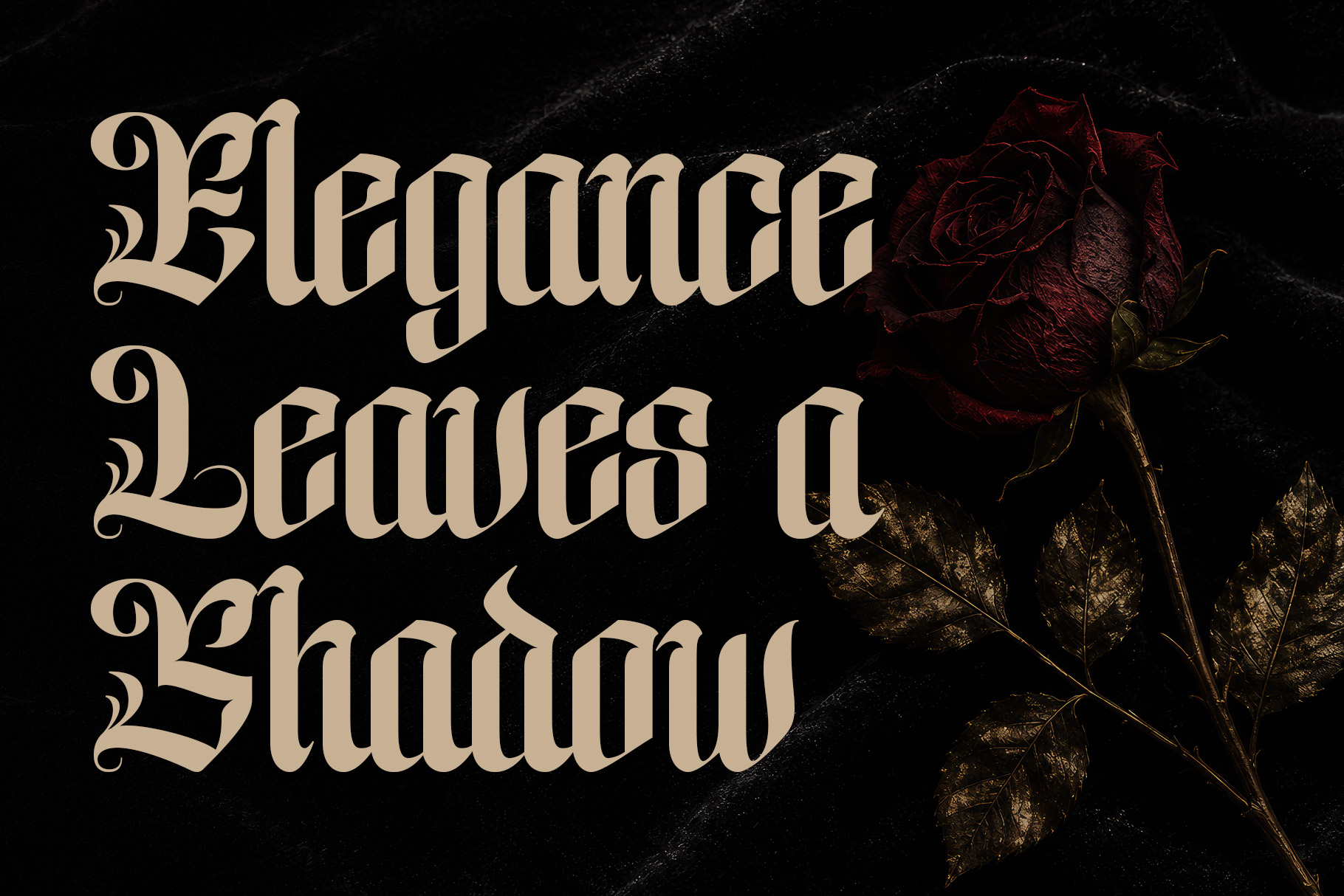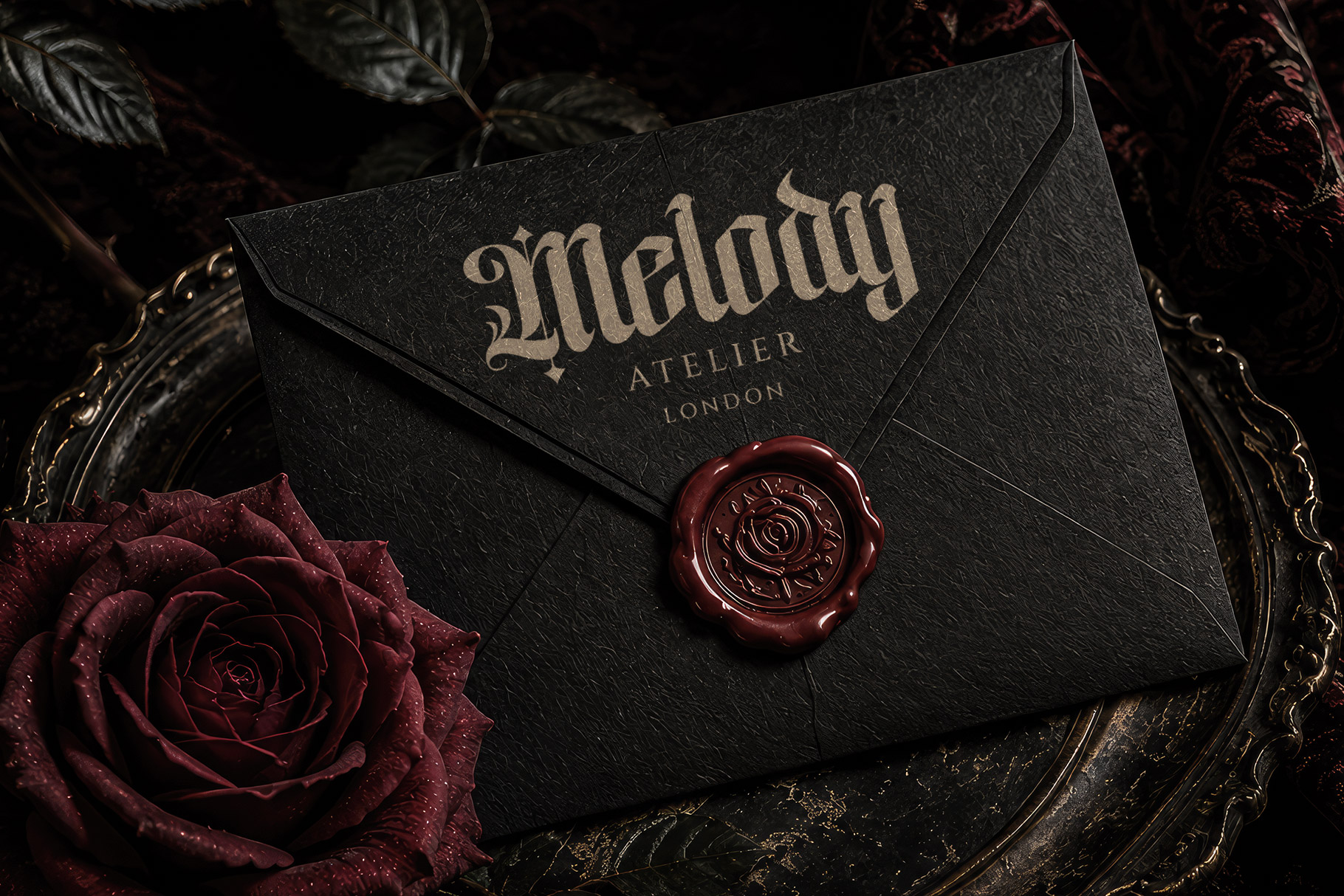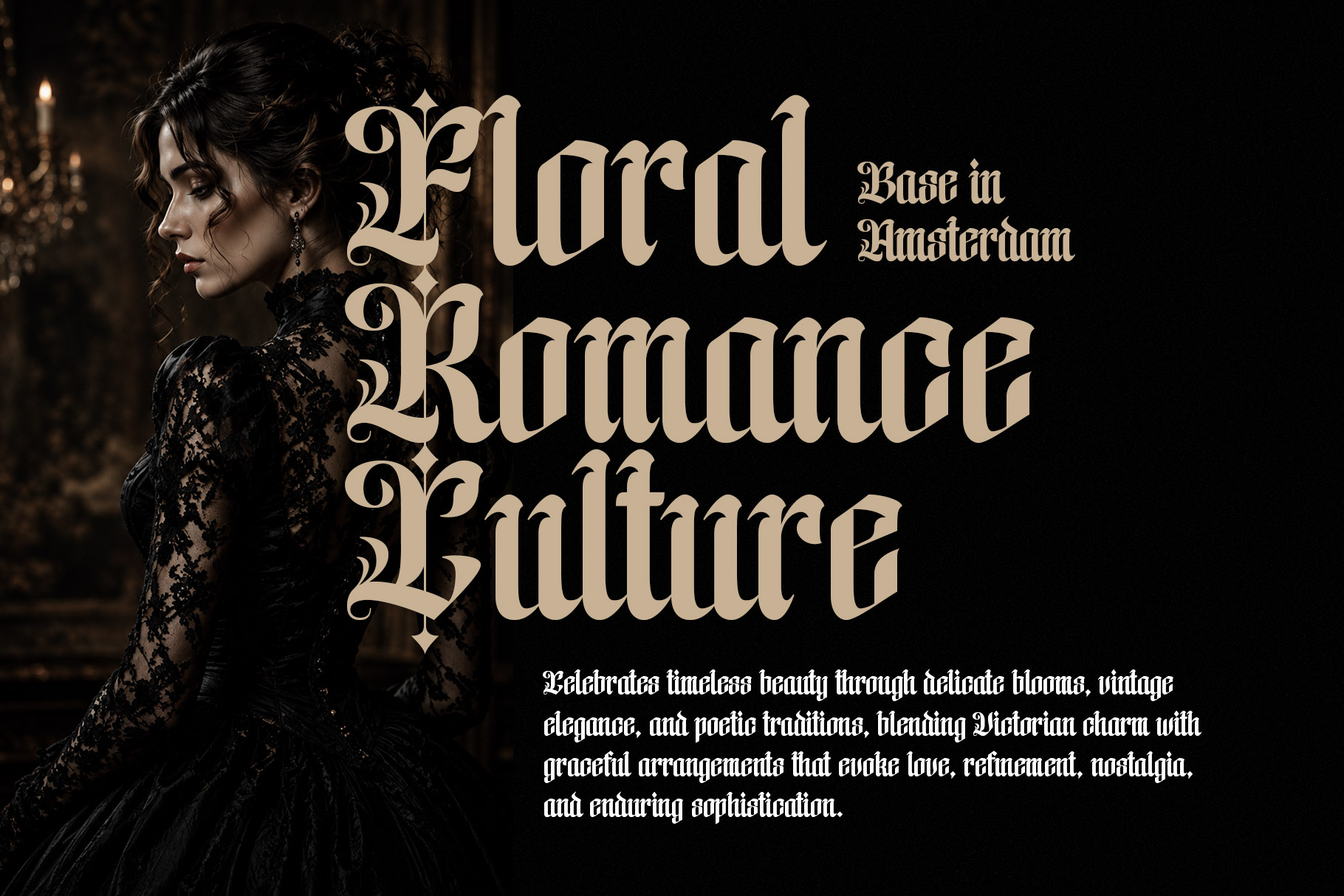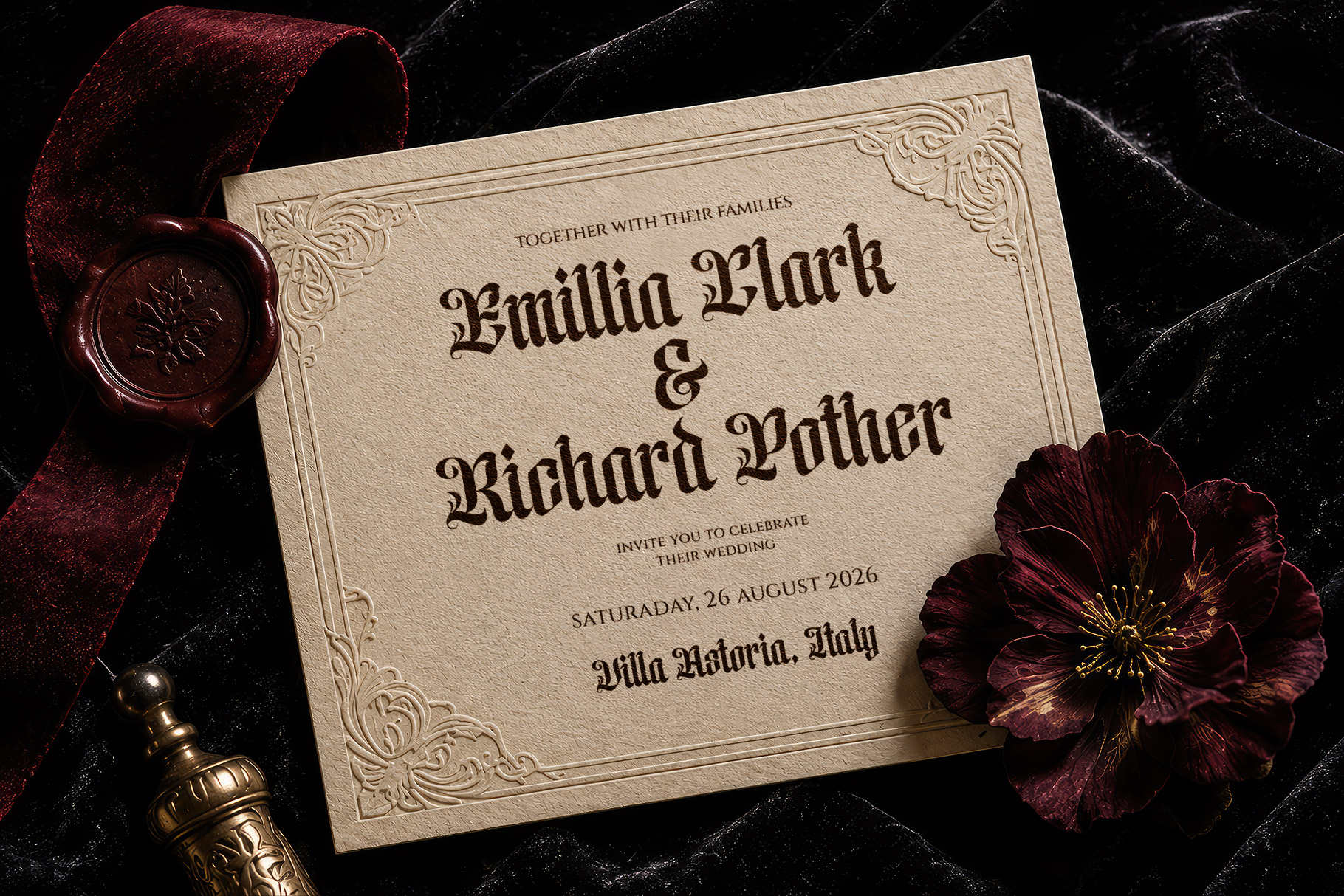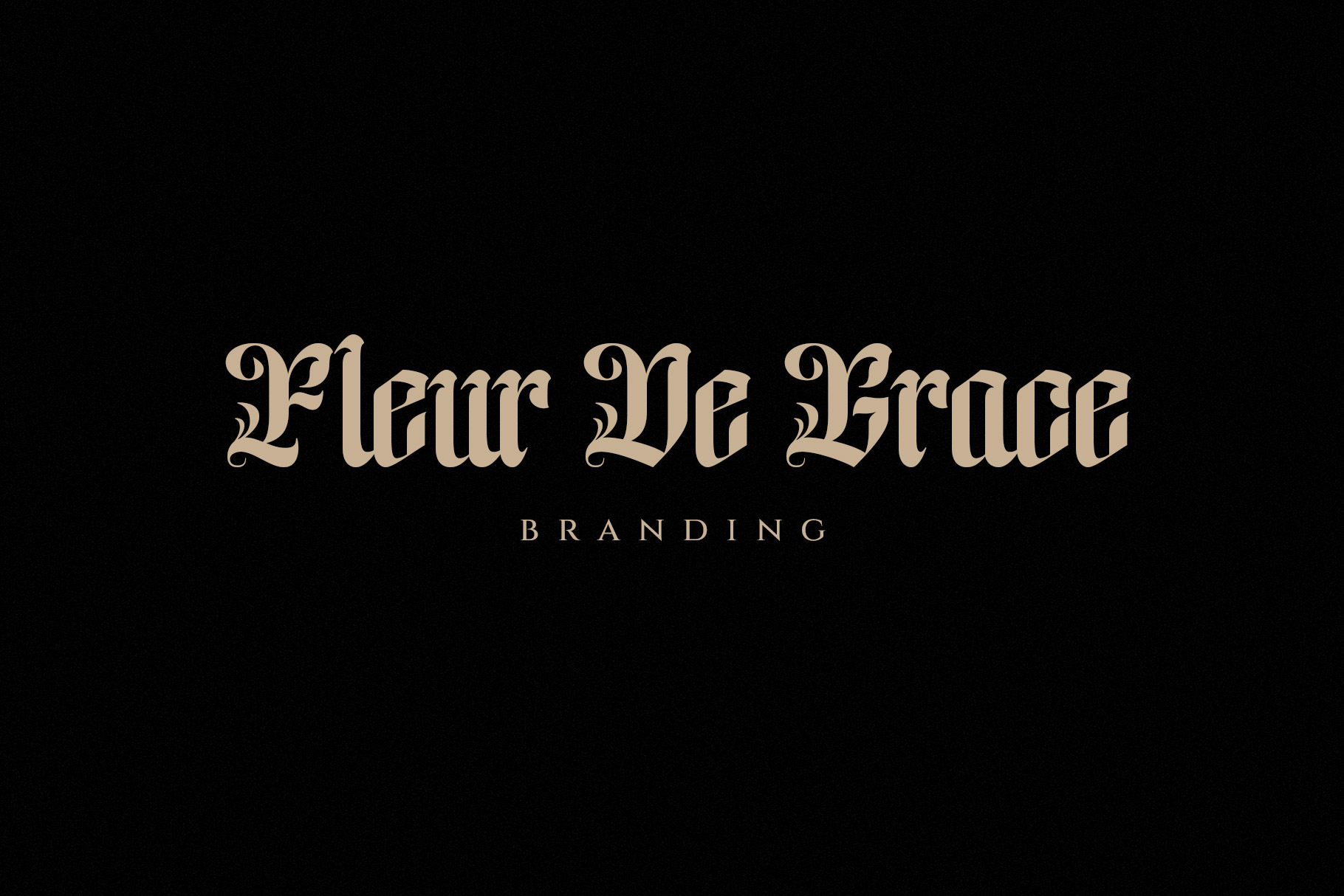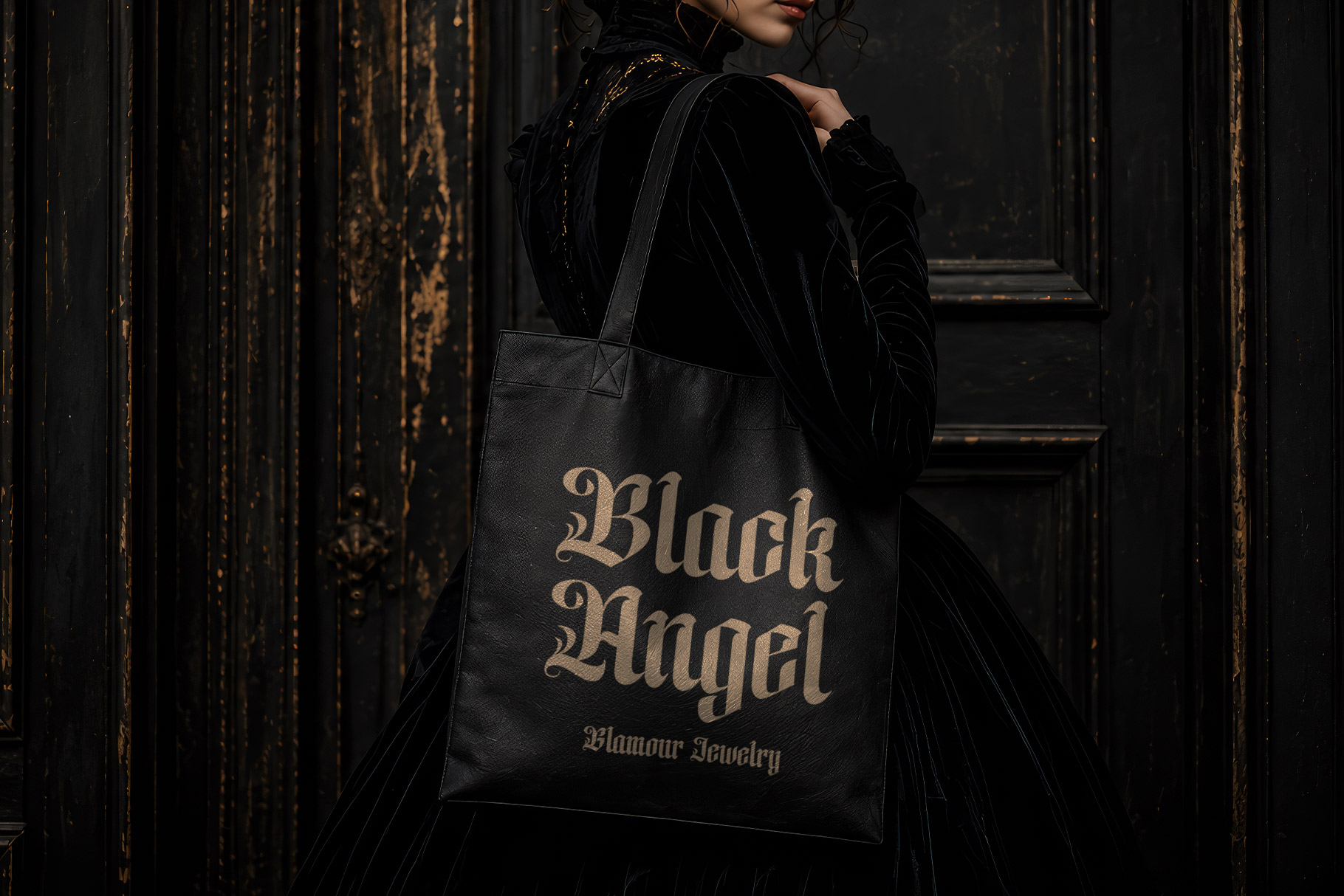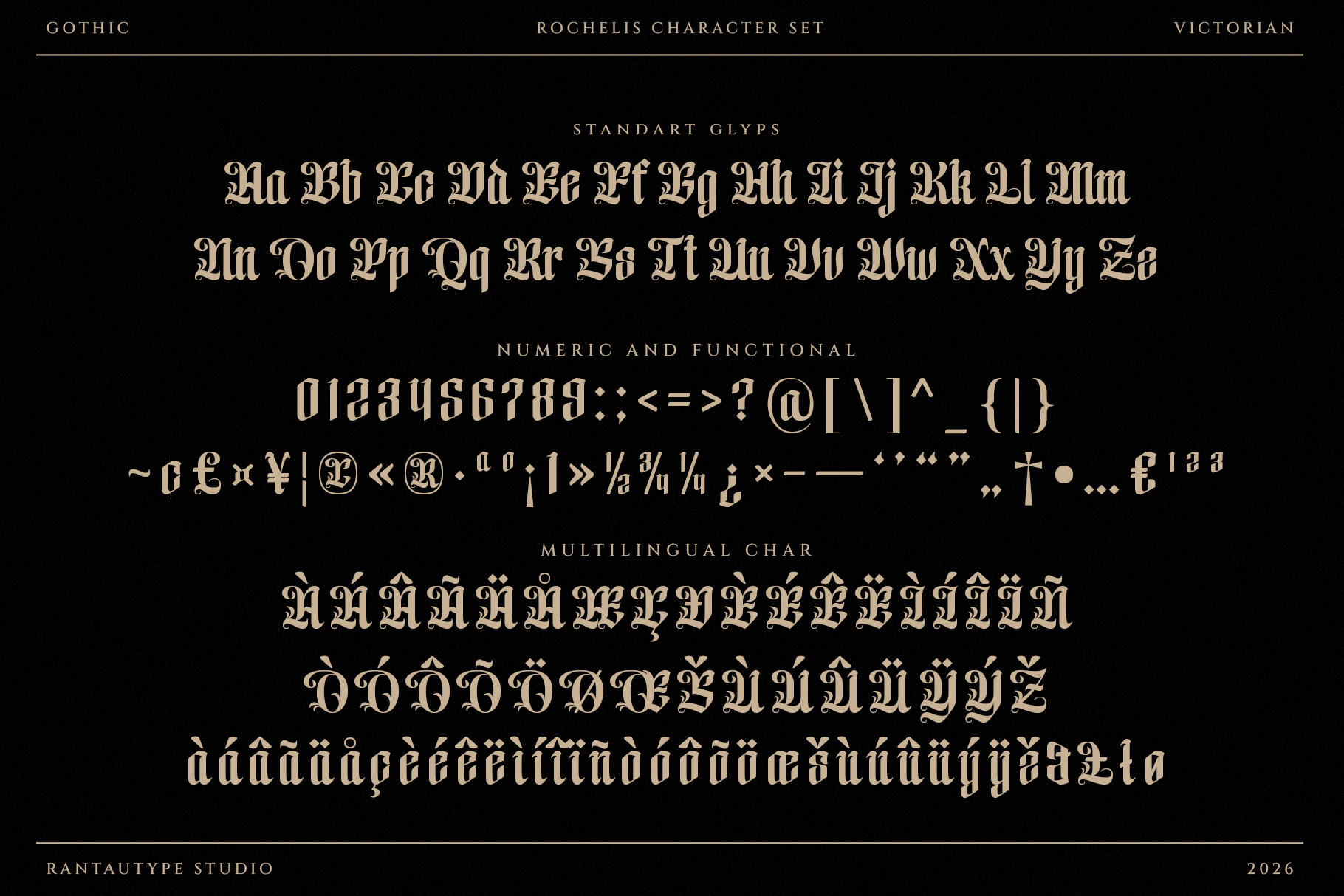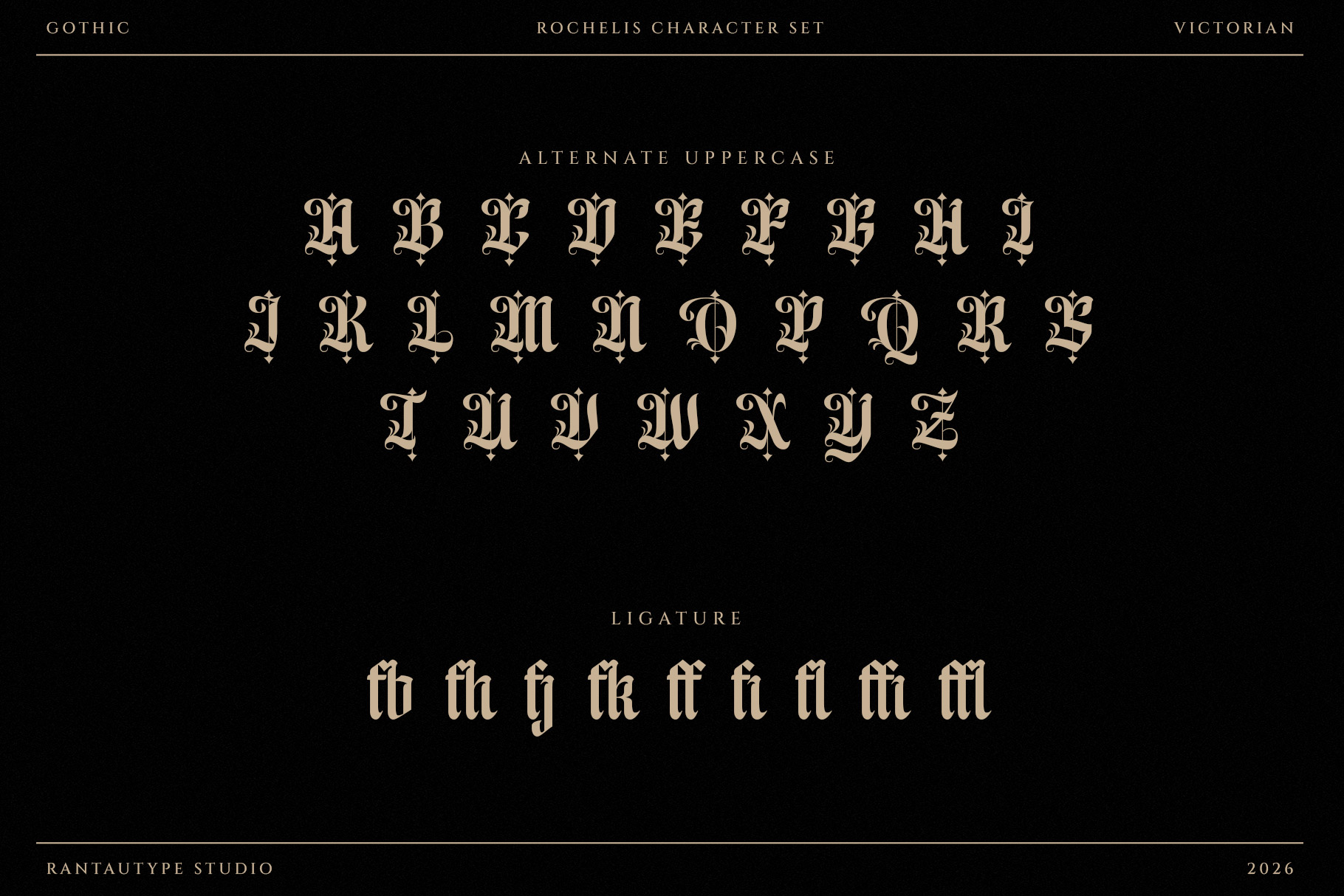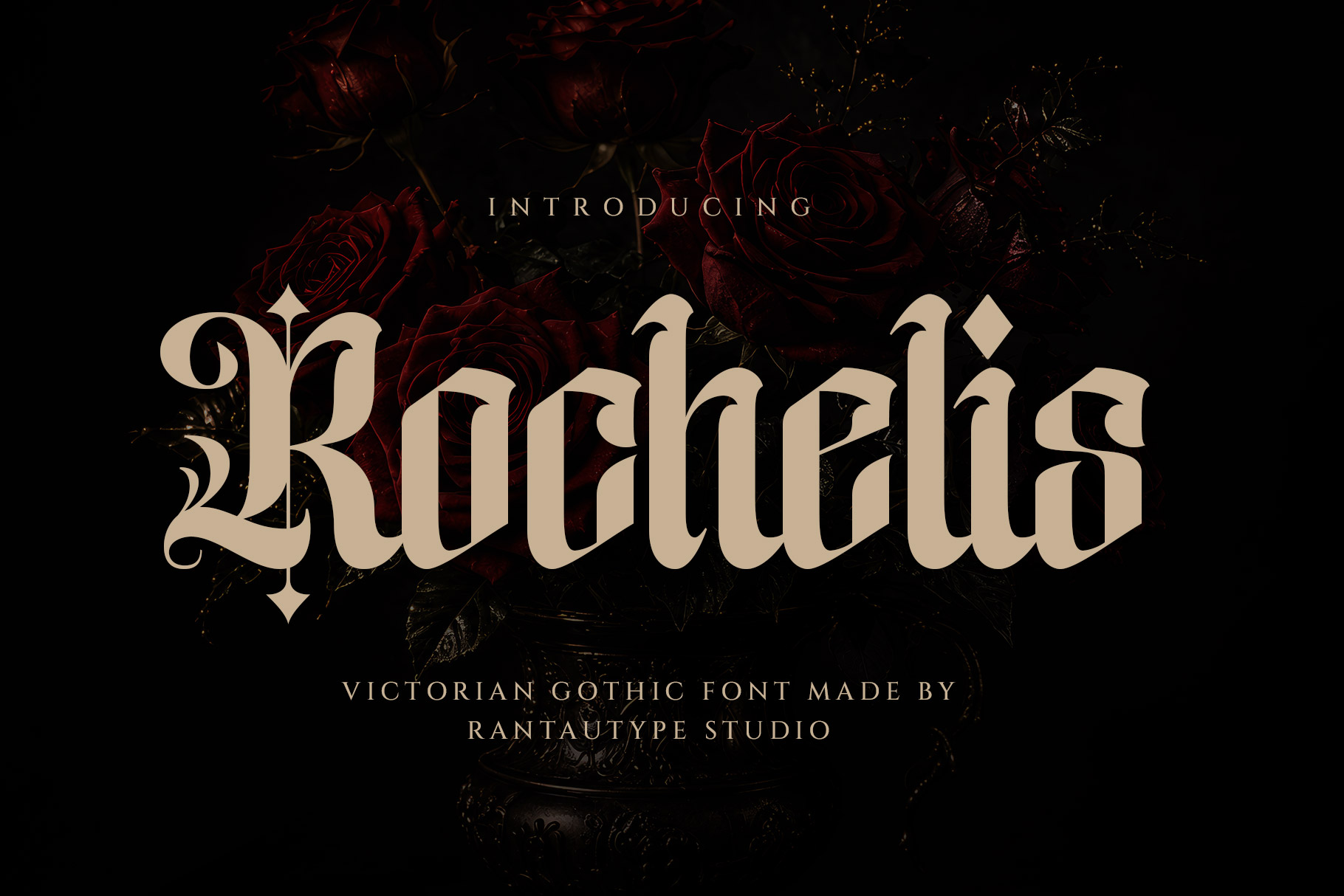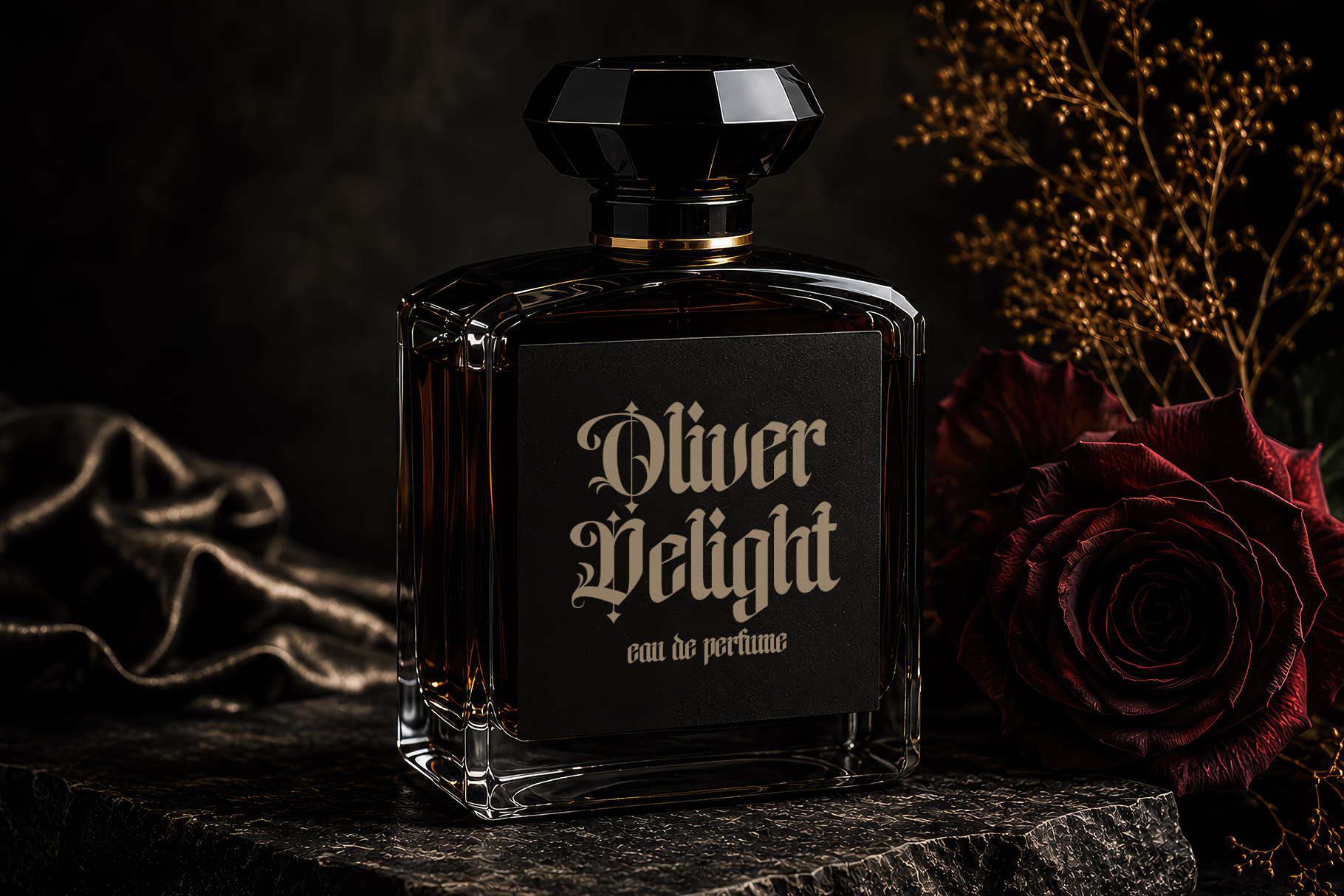
Rochelis is Victorian Gothic font embodies a dramatic fusion of traditional Blackletter heritage and refined Victorian elegance. Rochelis is perfectly choice for any creative endeavor, creating, modern, lifestyle design such as logotype, title, cover, branding, invitations, wedding designs, display and magazine, social media posts, advertisements, printed quotes, product packaging, corporate brand, product designs, labels, photography, watermarks, special events and any other project with elegant touch.
Rochelis Victorian Gothic Font